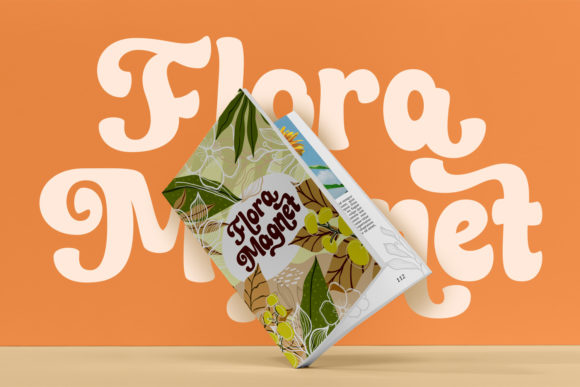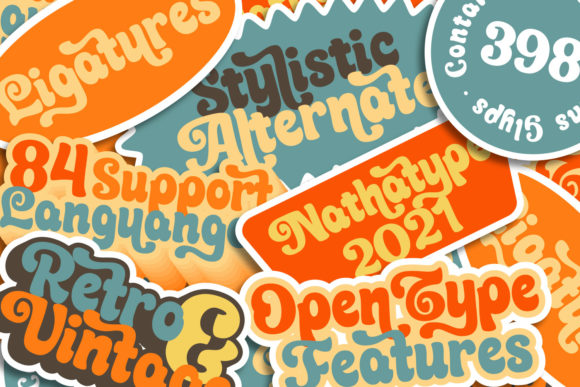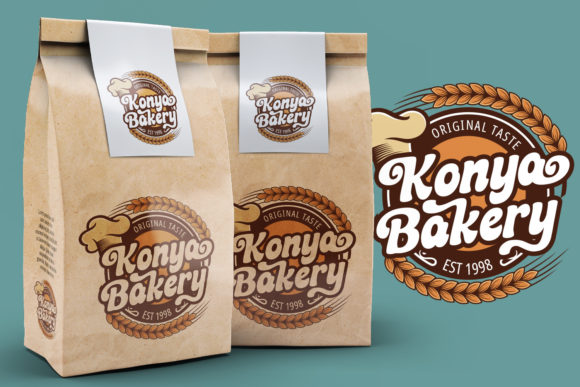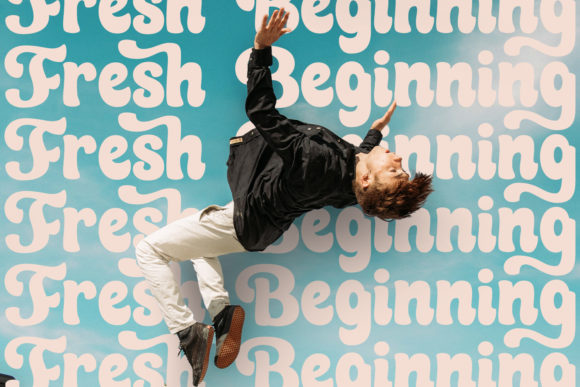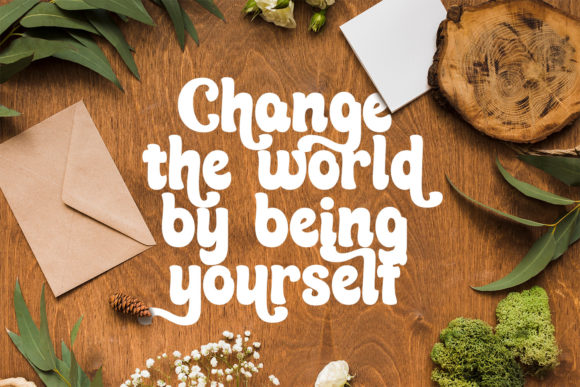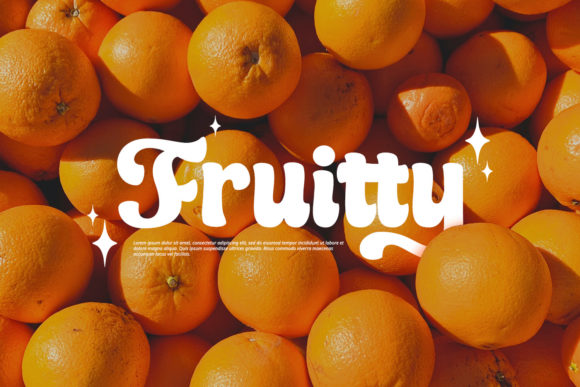
Introduction to Salt Debris Font
Salt Debris is the right display font to step up your branding game.
It is a statement font that exudes prominence, style, and adventure, and it is guaranteed to engage your audience This font is PUA encoded which means you can access all of the glyphs and swashes with ease.